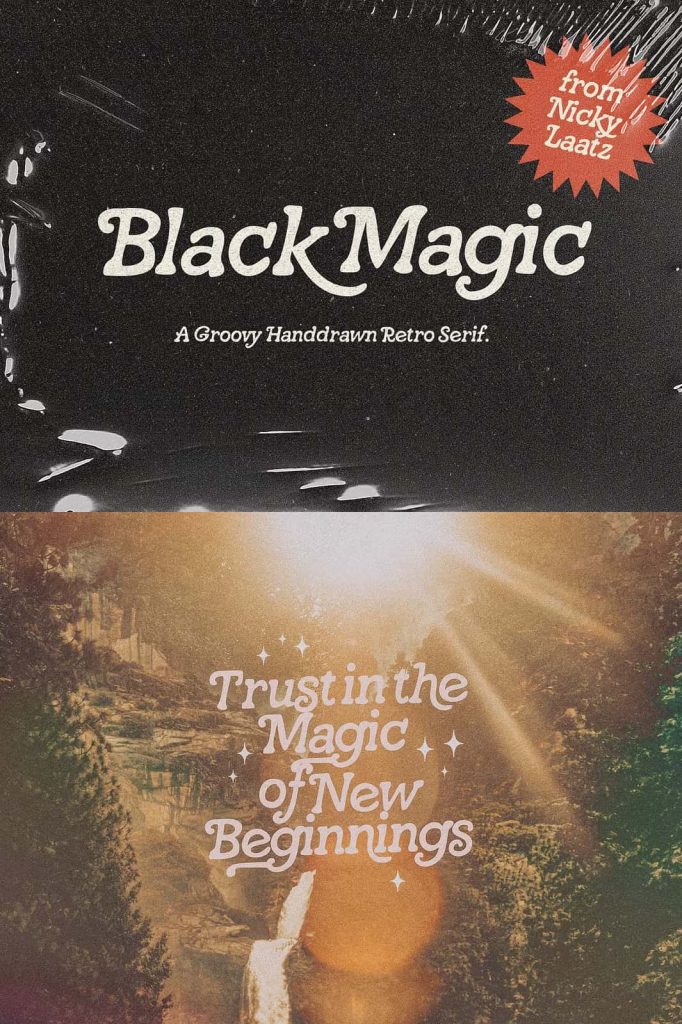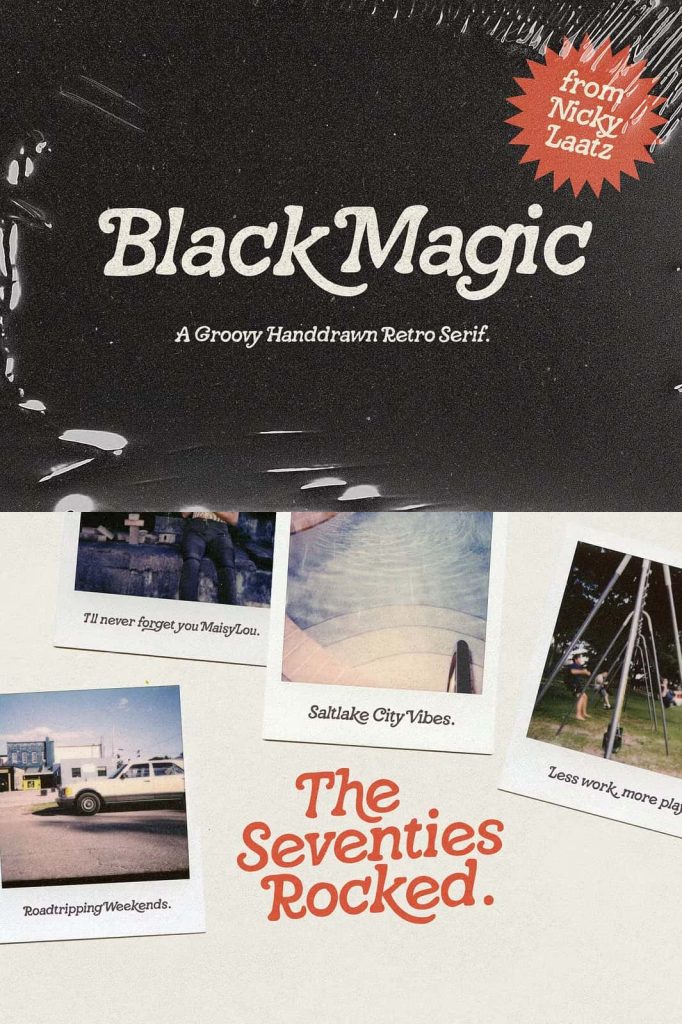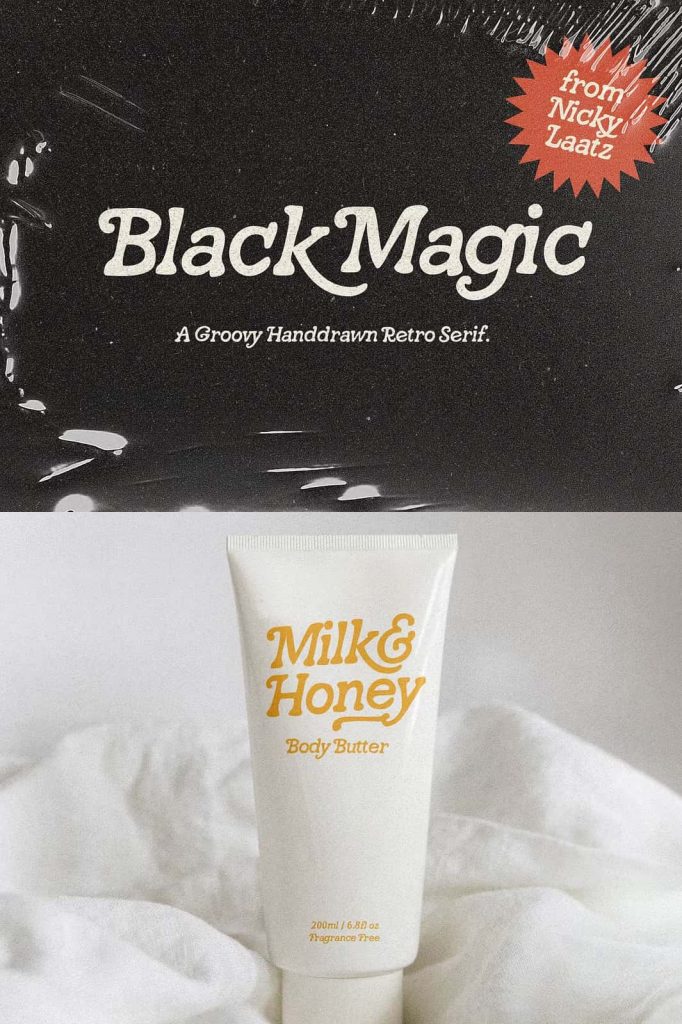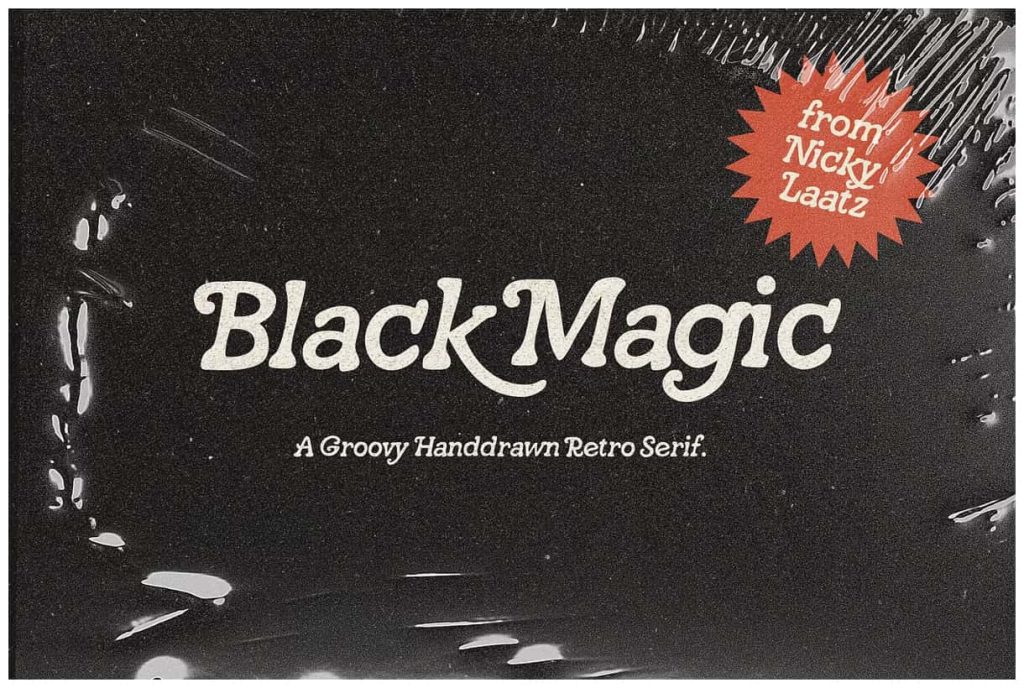
Black Magic Retro Slab Serif: A Groovy 70s-Inspired Typeface for Laid-Back Designs
The Black Magic retro slab serif brings the carefree spirit of the 1970s straight into your modern design projects. With its hand-drawn charm, relaxed letterforms, and groovy OpenType stylistic alternates, Black Magic captures the warmth and personality of an era known for creativity and expressive typography. This font invites designers to step into a world of retro aesthetics while still enjoying the flexibility and refinement of a professionally crafted typeface.
A Casual Hand-Drawn Typeface Inspired by the 70s
Black Magic embraces the nostalgic energy of vintage graphics, retro signage, and playful slab serif styles from the 1970s. Every curve and stroke is intentionally crafted to feel organic, giving the font a friendly and approachable appearance. Rather than relying on mechanical precision, Black Magic celebrates the imperfections and character of hand-drawn lettering. This aesthetic makes the typeface suitable for projects that aim to evoke comfort, creativity, and a laid-back mood.
Groovy Stylistic Alternates for Custom Retro Flair
One of the most exciting features of the Black Magic typeface is its collection of OpenType stylistic alternates. These alternates allow designers to customize their text with variations that add movement, rhythm, and personality. The groovy shapes and unexpected twists in the alternates give you full creative control over the retro aesthetic, allowing you to build expressive headlines and unique wordmarks. With these alternates, each design project becomes more distinctive and visually engaging.
Perfect for Vintage-Inspired Designs
Black Magic makes it easy to produce bold and memorable visuals in a variety of creative settings. Its relaxed yet confident style fits perfectly in designs that require a touch of retro charm. Whether you want to promote a nostalgic event, create branding for a vintage-inspired product, or design apparel that feels handcrafted and expressive, Black Magic provides the aesthetic foundation you need. It captures the essence of a bygone era while remaining adaptable for modern creative needs.
Ideal for Posters, Logos, Packaging, and More
The versatility of Black Magic allows it to enhance many types of projects. Posters become more striking with its bold slab serif structure and groovy alternates. Logos gain personality and memorability, especially when paired with the hand-drawn elements the font provides. Packaging for artisanal goods, retro-themed beverages, or lifestyle products becomes even more appealing with Black Magic’s vintage energy. It also performs beautifully on social media graphics, t-shirt designs, editorial titles, and promotional materials where a relaxed 70s vibe enhances the message.
A Typeface That Brings Retro Creativity Back to Life
Black Magic does more than replicate a style—it revives the playful spirit of 70s design with a high-quality, modern approach. The combination of slab serif structure, hand-drawn edges, and stylistic alternates adds depth and variety to your creative toolkit. Instead of feeling rigid or overly polished, the typeface encourages expression, experimentation, and bold retro storytelling. Its casual nature invites designers to explore layouts that feel natural, warm, and full of character.
If you want to bring authenticity, groovy energy, and a carefree retro atmosphere into your work, the Black Magic retro slab serif is the perfect choice. Use it to transform ordinary designs into expressive, vintage-inspired creations that stand out with charm and confidence.